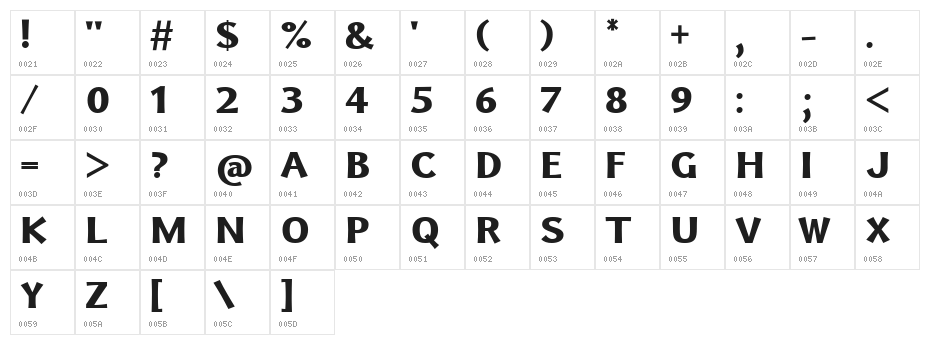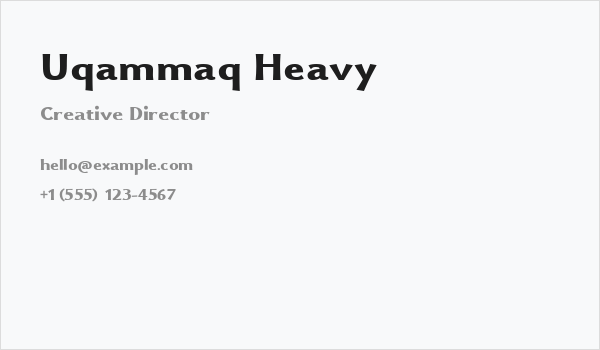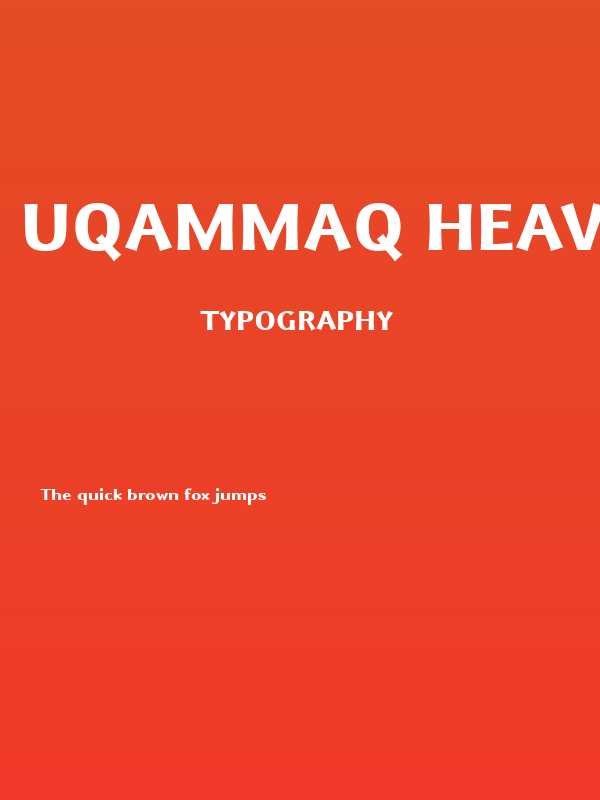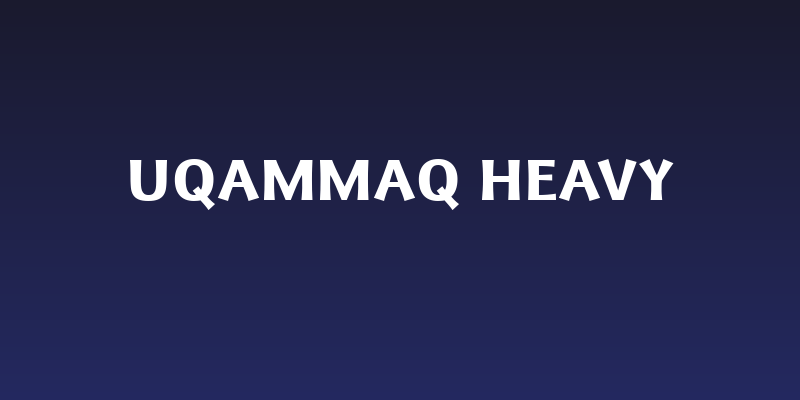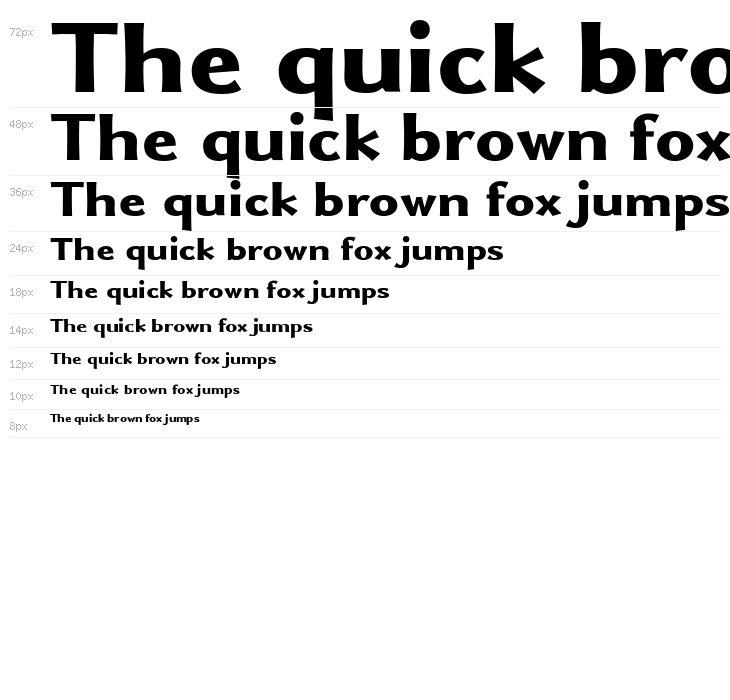
Uqammaq Heavy Font
Uqammaq Heavy Description
This font features bold, strong lines with a modern and clean aesthetic. The uppercase letters are robust and assertive, while the lowercase letters maintain a consistent weight, providing a harmonious balance. The numerals are clear and easily distinguishable, making them suitable for various applications. The special characters are well-defined, adding versatility to the font's use. Overall, the design is straightforward yet impactful, making it ideal for attention-grabbing headlines or branding materials.